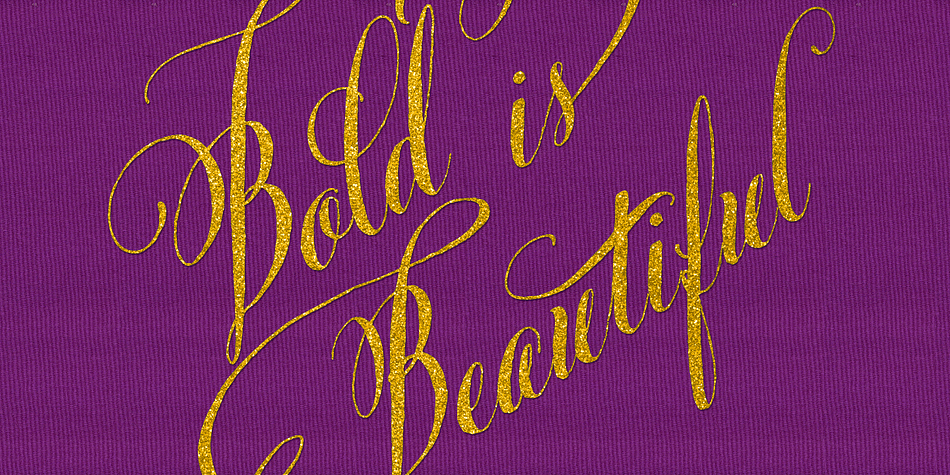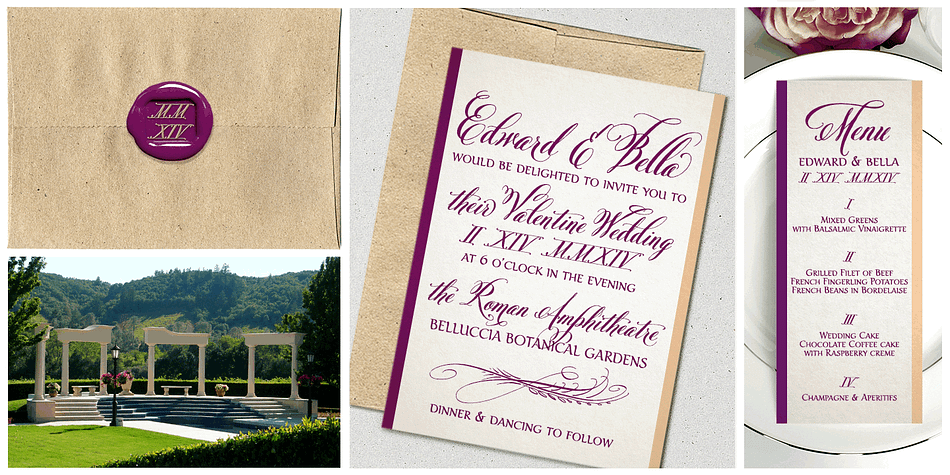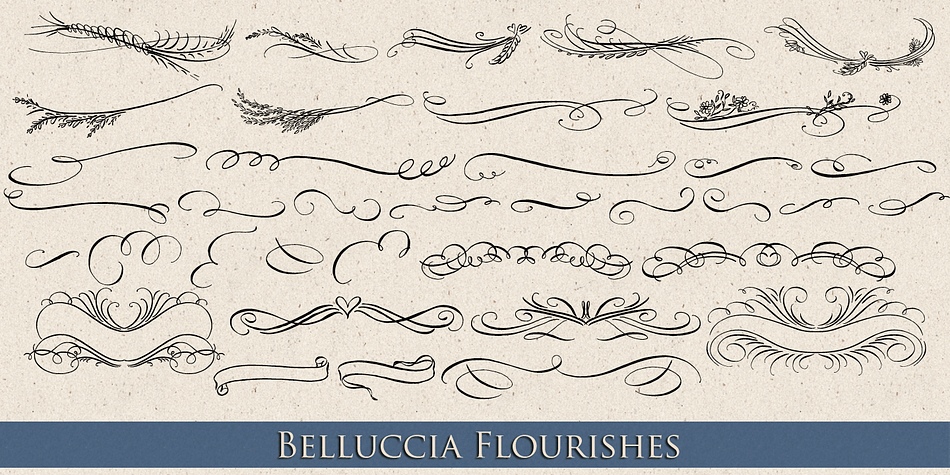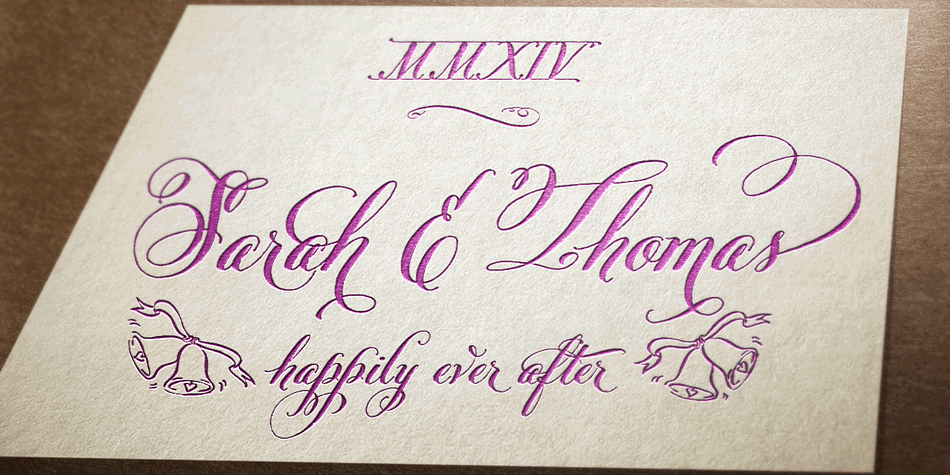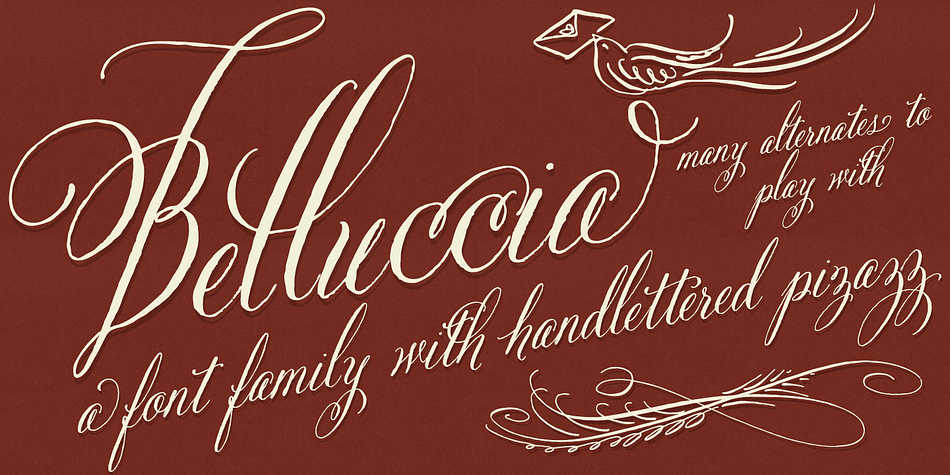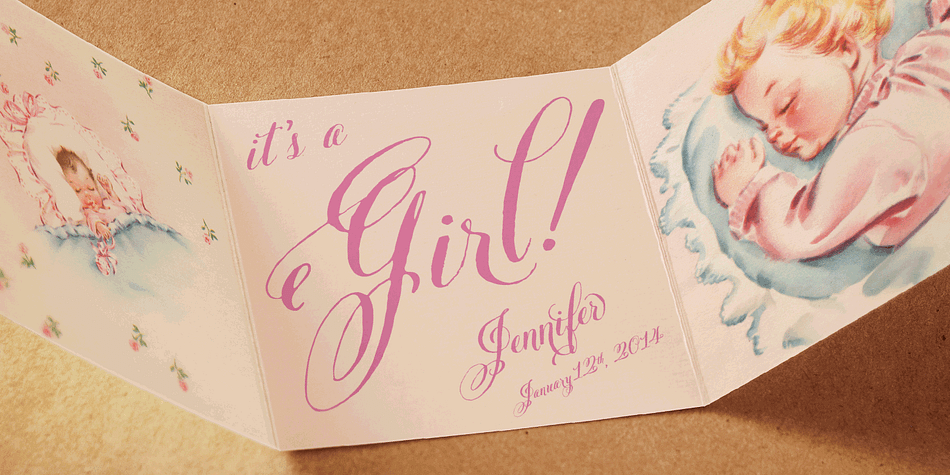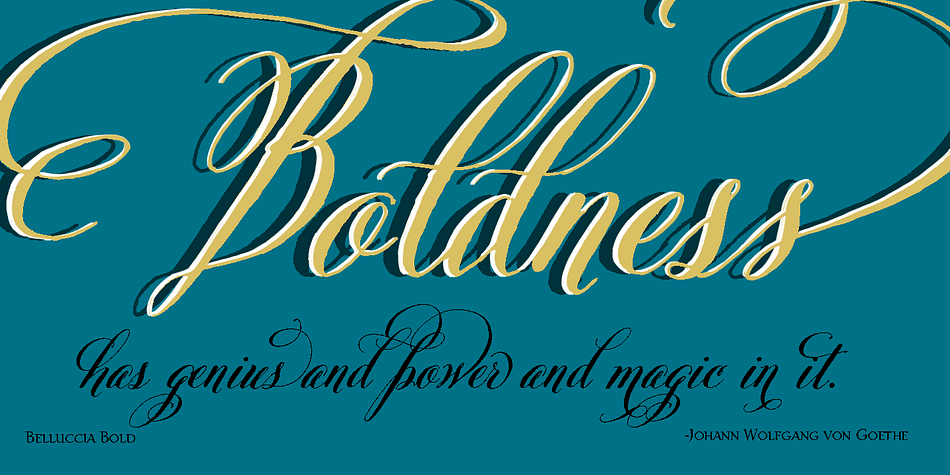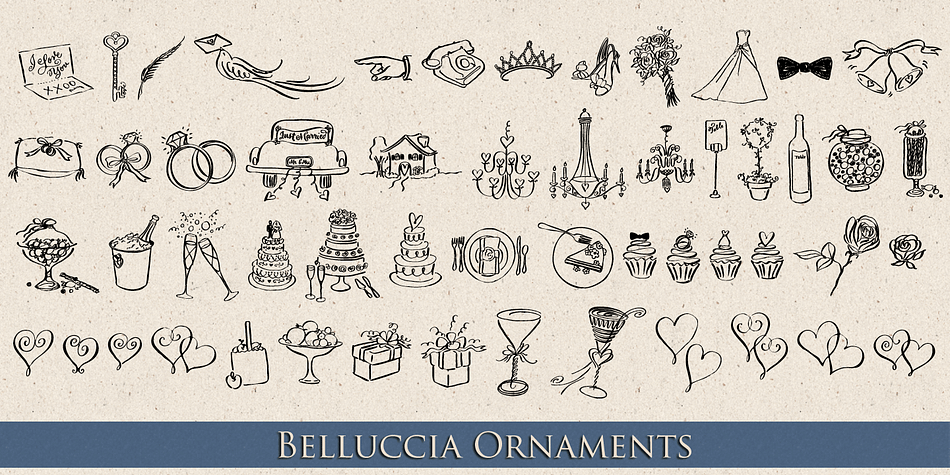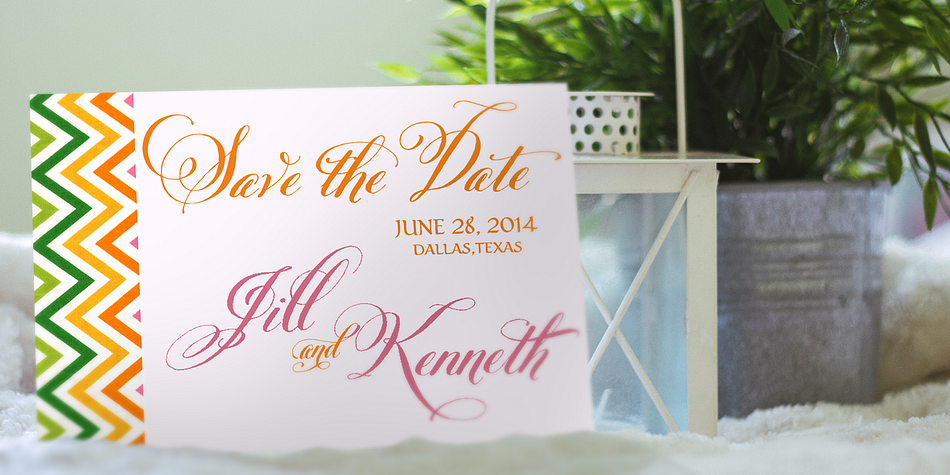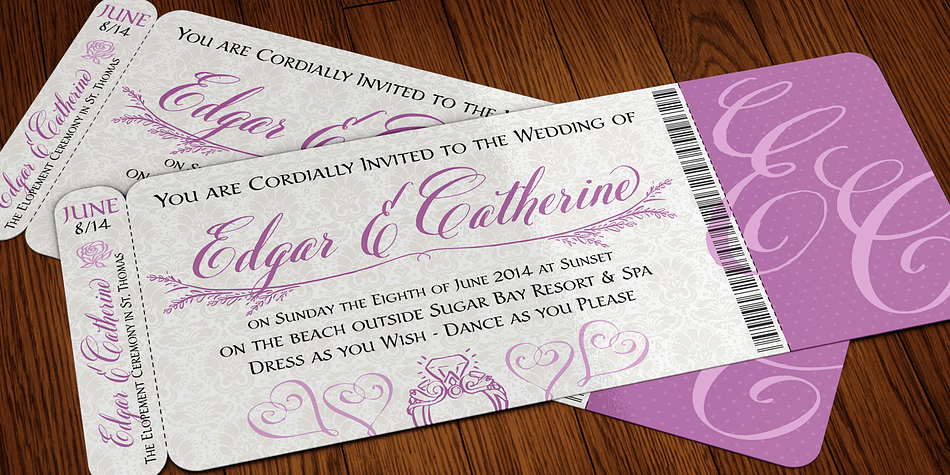
Designed by Debi Sementelli and Brian J. Bonislawsky, Belluccia is a dingbat and script font family. This typeface has thirteen styles and was published by Correspondence Ink.
What’s unique about the Belluccia font family (now in both Regular & bold weights) is the ability to turn on various features (Ligatures, Stylistic Alternates, Contextual Alternates, Swashes, Old Style Figures) to auto-magically swap out letter sets with alternate versions, allowing you to easily type your messages, while creating the visual diversity that gives you the unique look of custom lettering.
By highlighting a letter, and switching fonts, you can mix and match from all four alphabet sets.
Whether you stay Classic or GO BOLD, have fun playing with all the possibilities!